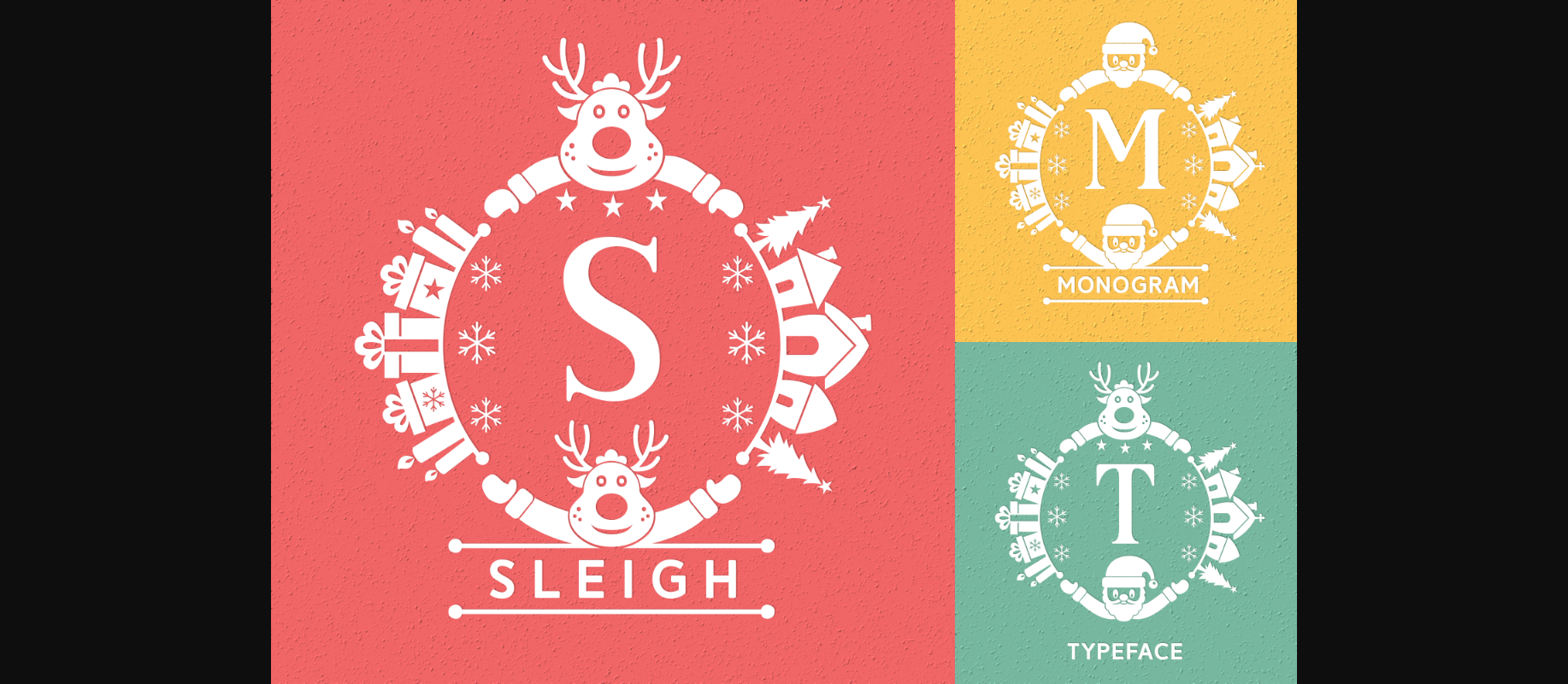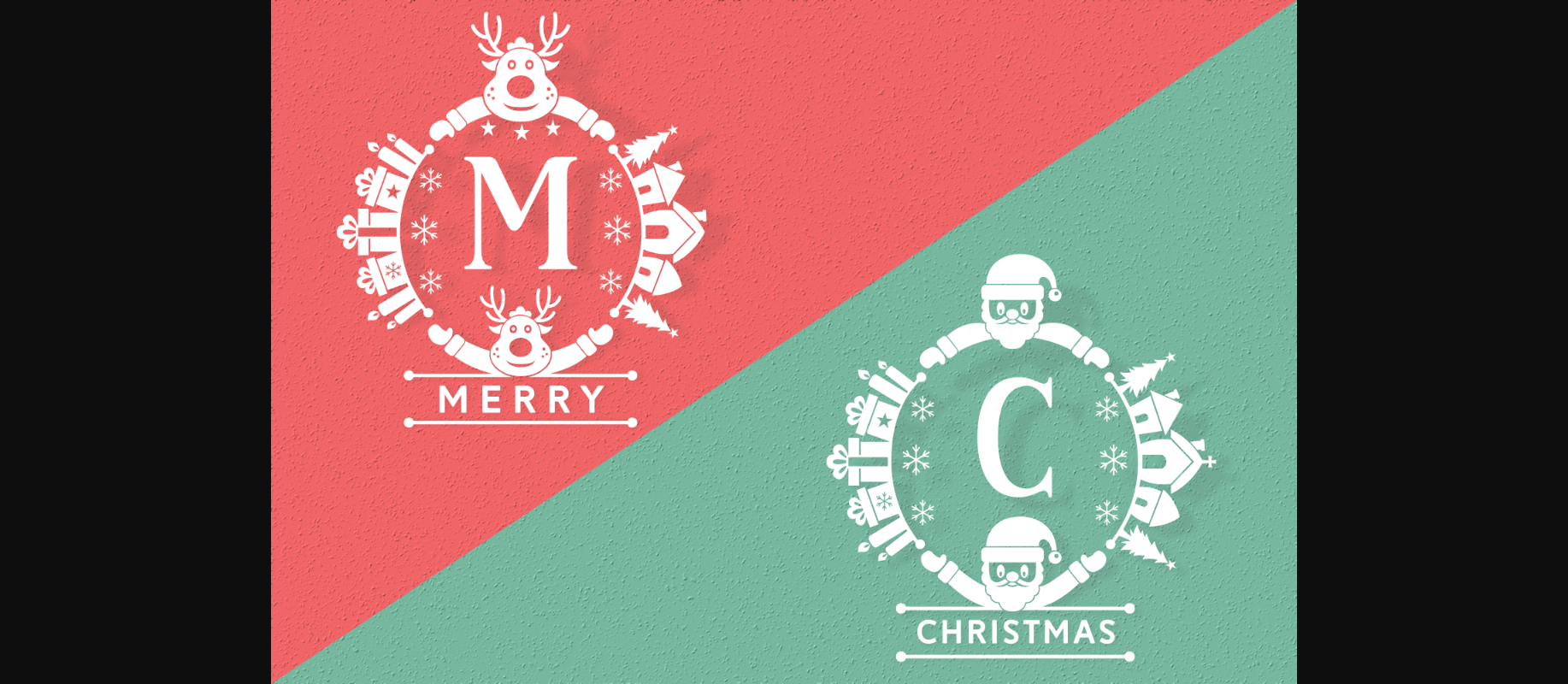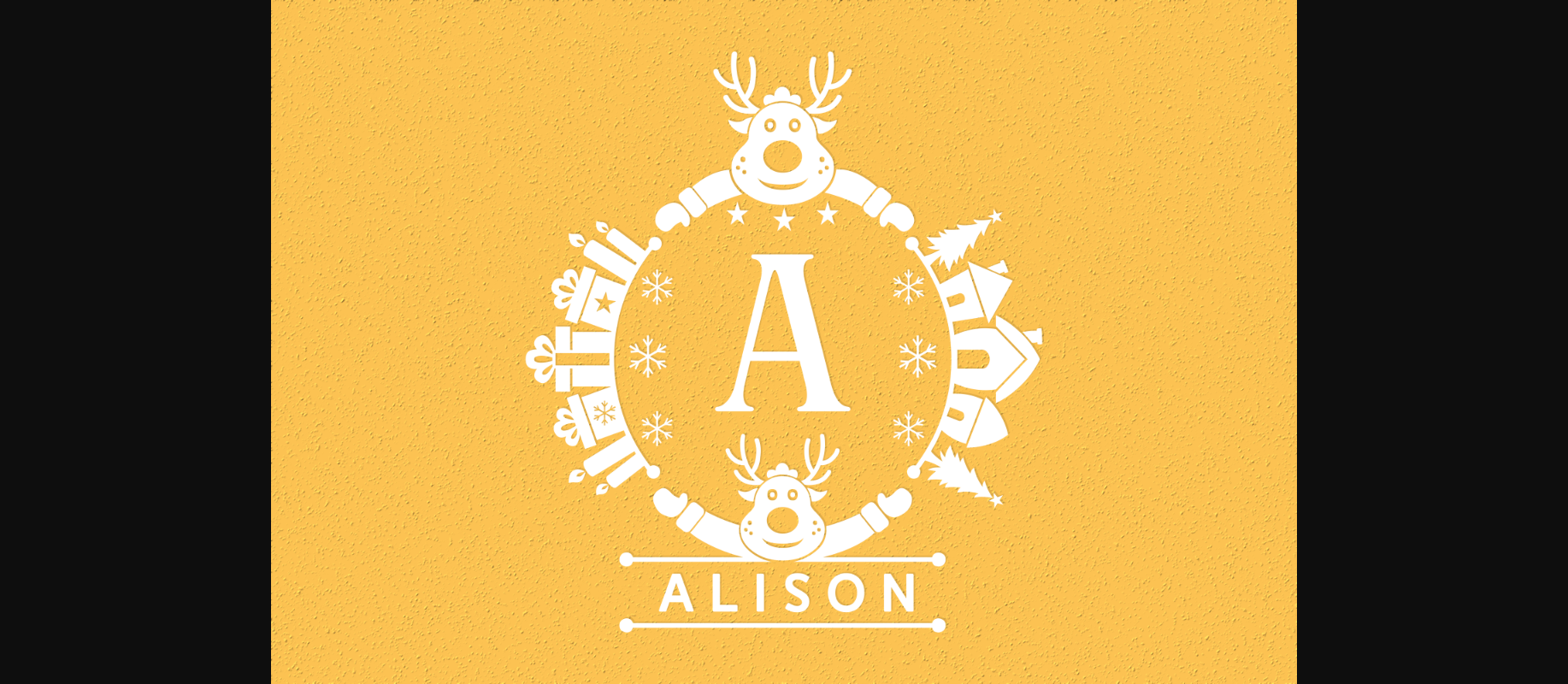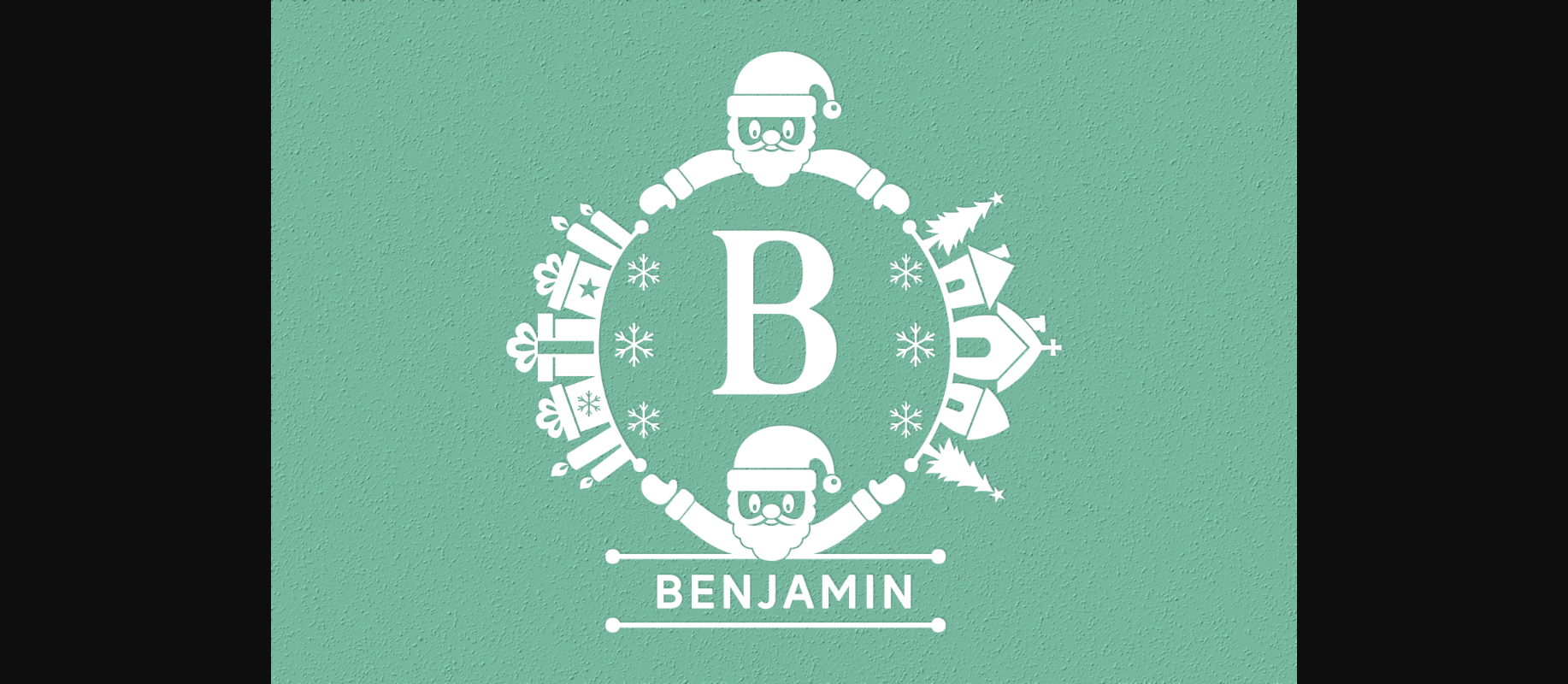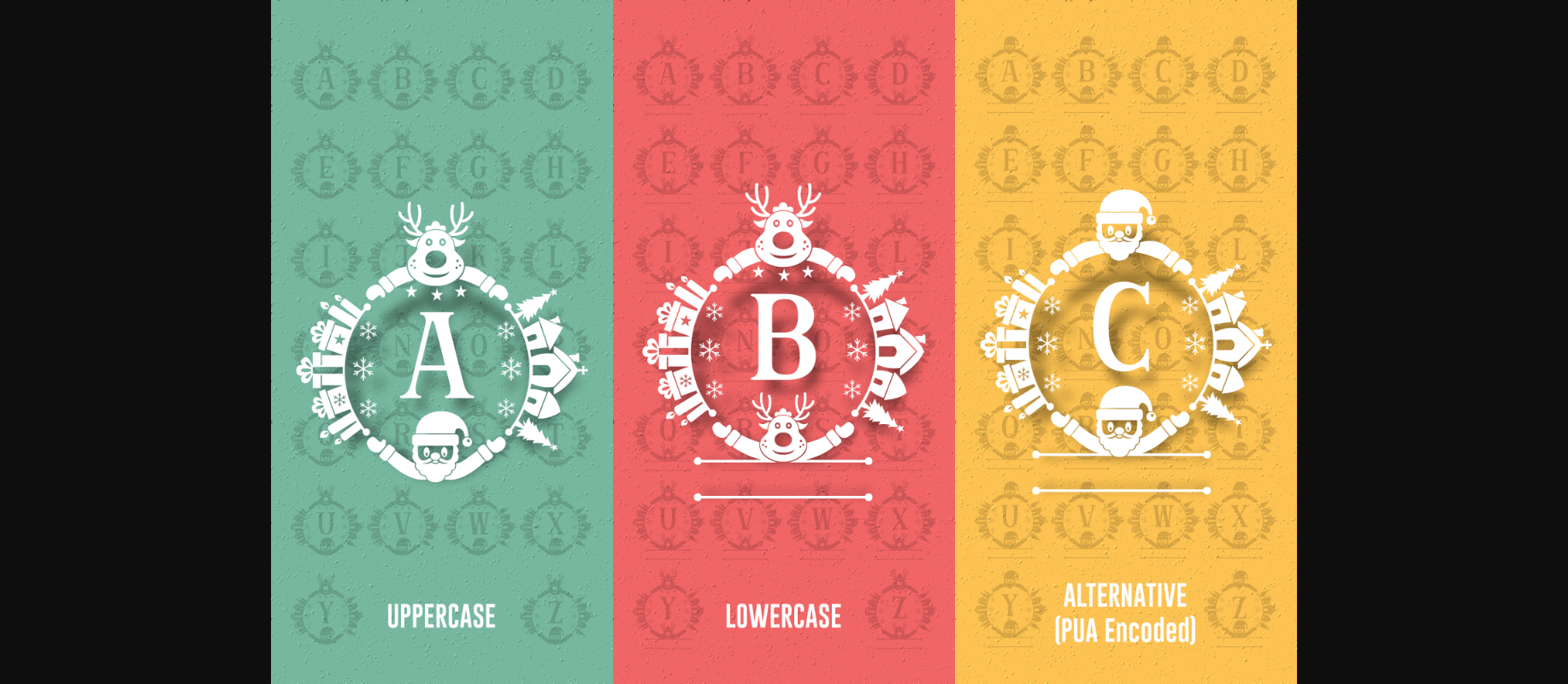
Sleigh Font
About Sleigh Font
Sleigh is a detailed, festive and charming decorative font. It is PUA encoded which means you can access all glyphs and swashes with ease! This font is perfect for wintery themed designs, especially when combined with warm colors.